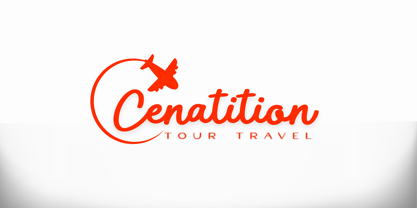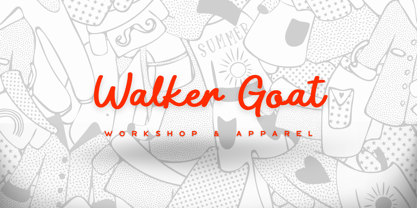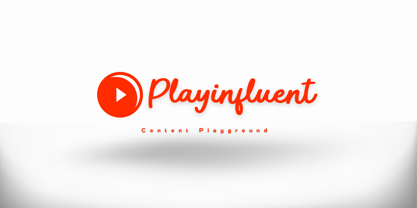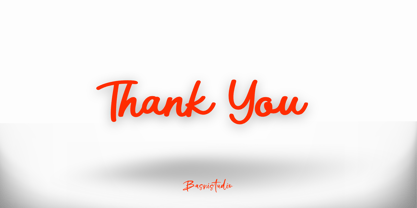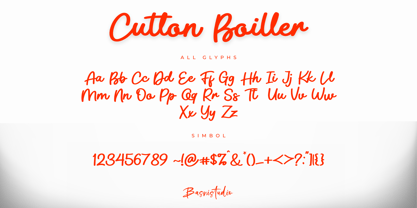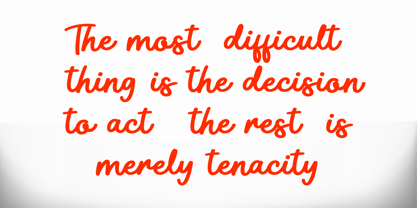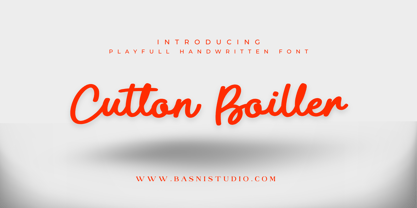
Cutton Boiller
by Basnistudio
The Cutton Boiller Font Family was designed by Bery Arisandi and published by Basnistudio. Cutton Boiller contains 1 styles. More about this family
Meet the Font That Brings Your Words to Life! 🎨
Say hello to Cutton Boiller Handwritten Font – your new creative BFF! This font is packed with personality, designed to add a dash of whimsy and a whole lot of charm to everything you create. Whether you’re designing for fun, crafting invitations, or spicing up your social media posts, Cutton Boiller is here to make your words POP!
Why You’ll Love It:
• 🌀 Playful Vibes: Quirky curves and joyful details make every letter a little celebration.
• 🌈 Versatile Magic: Perfect for posters, greeting cards, logos, or even your next DIY project.
• Uppercase & lowercase letters
• Numbers & punctuation
• Multilingual Support ( Support for 90 languages )
Designers: Bery Arisandi
Foundry: Basnistudio